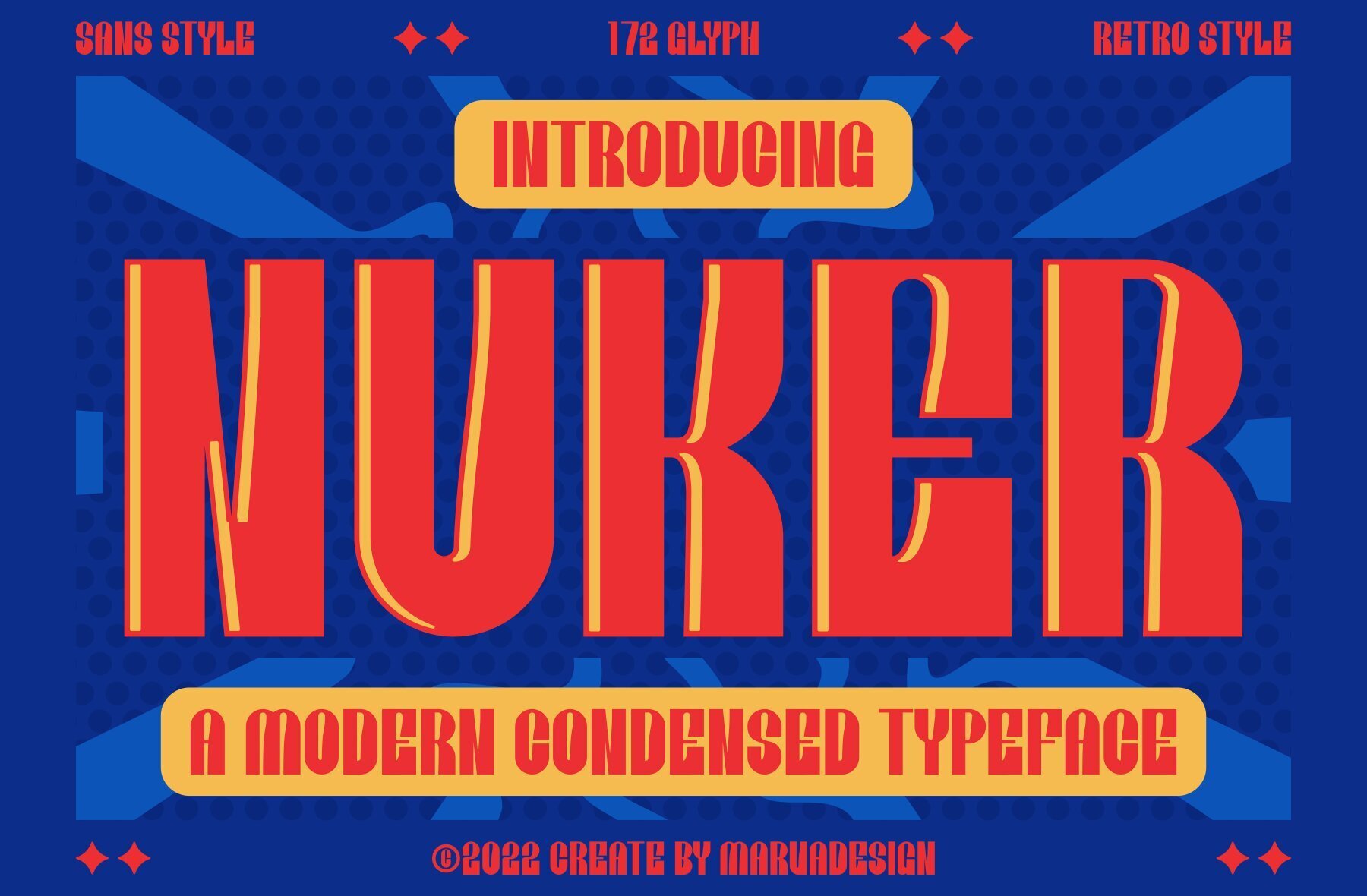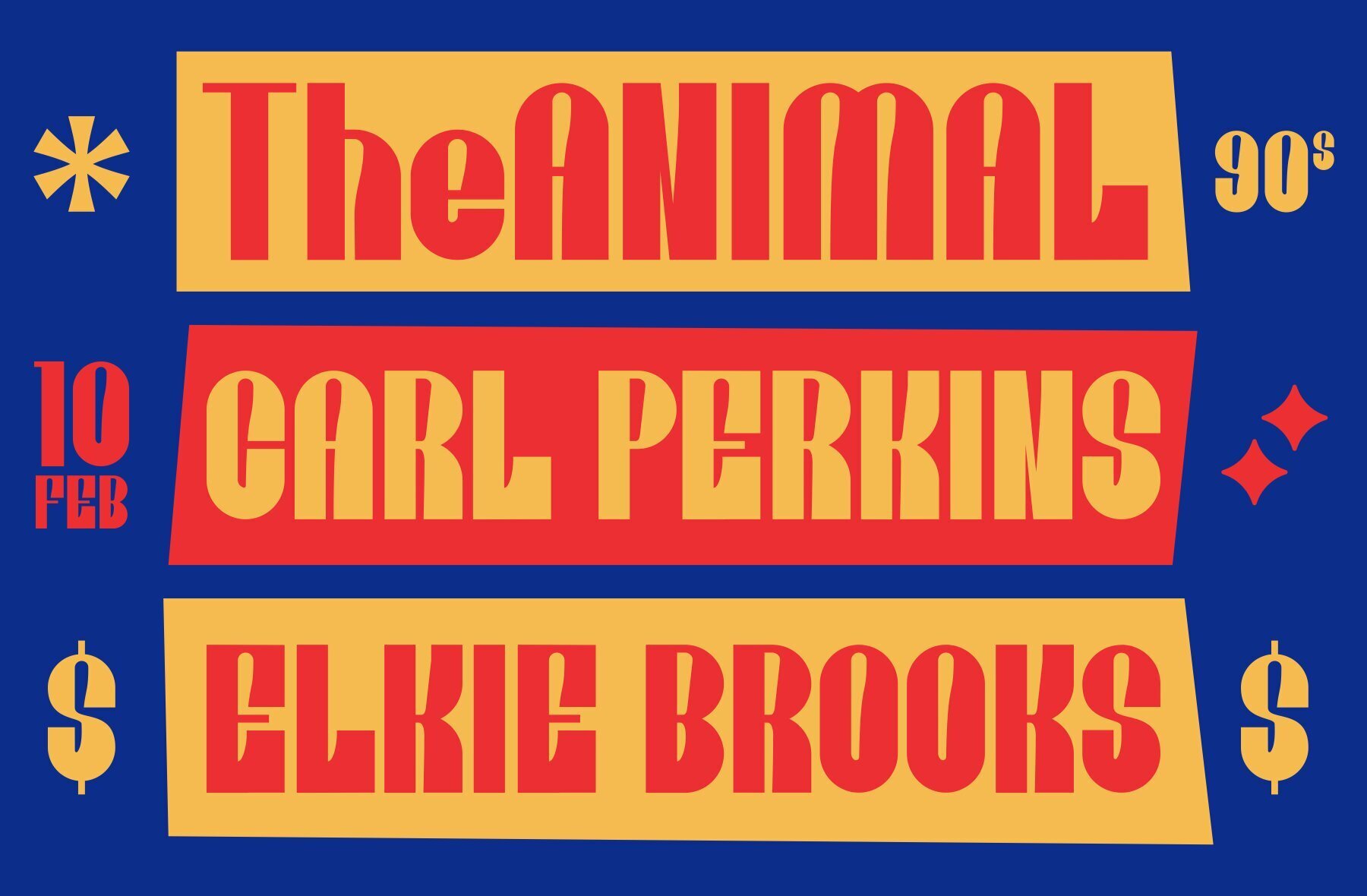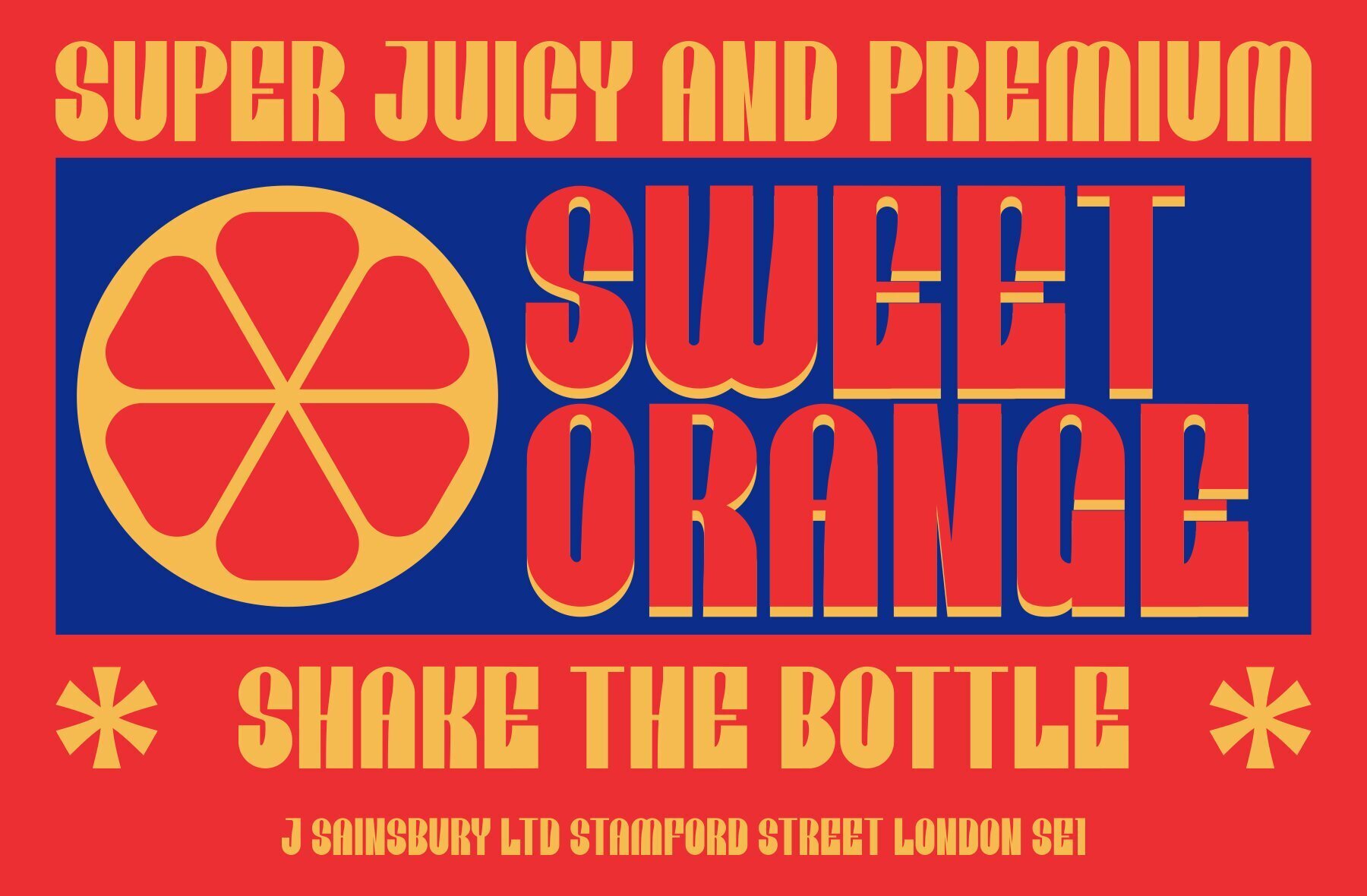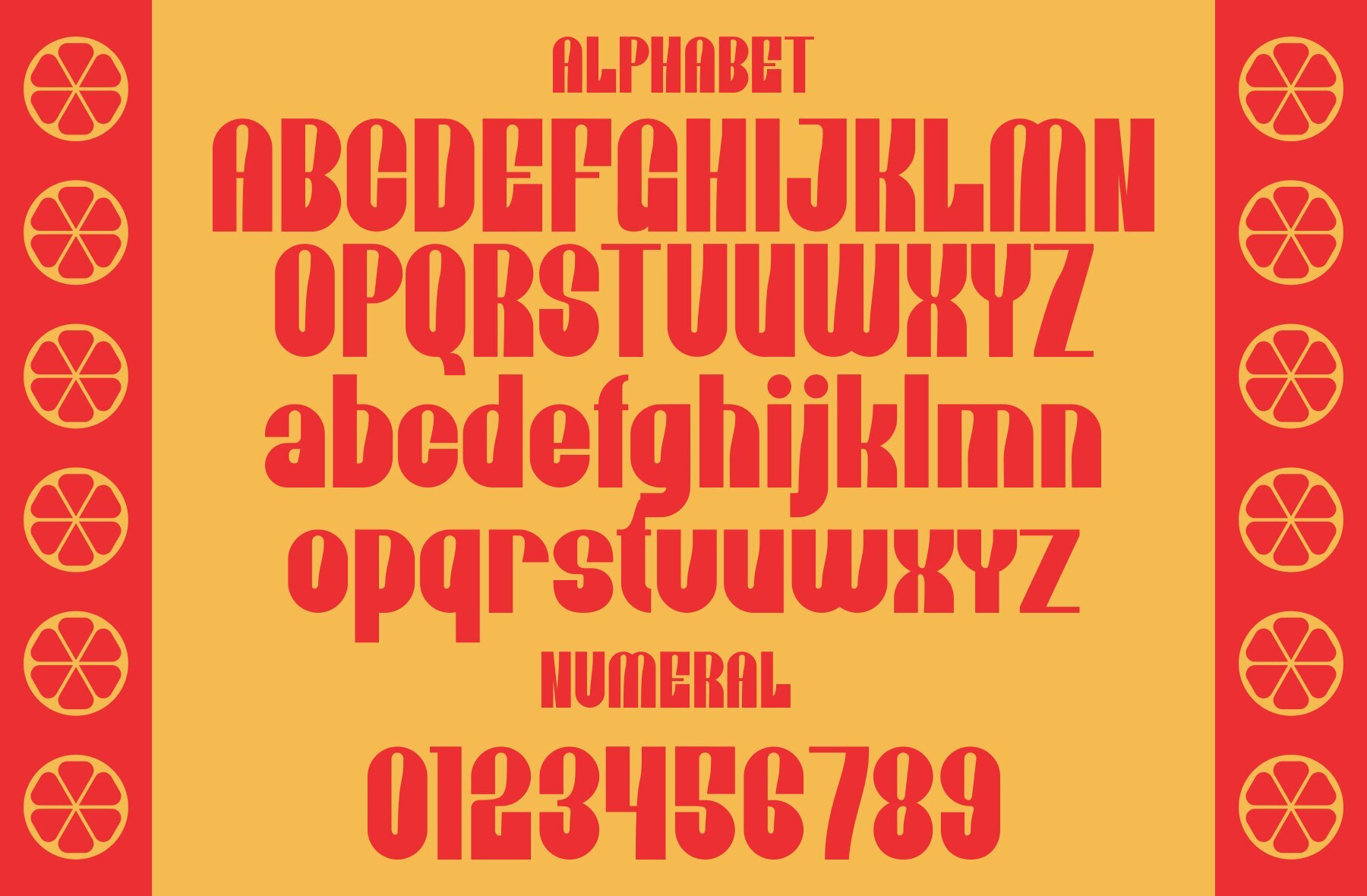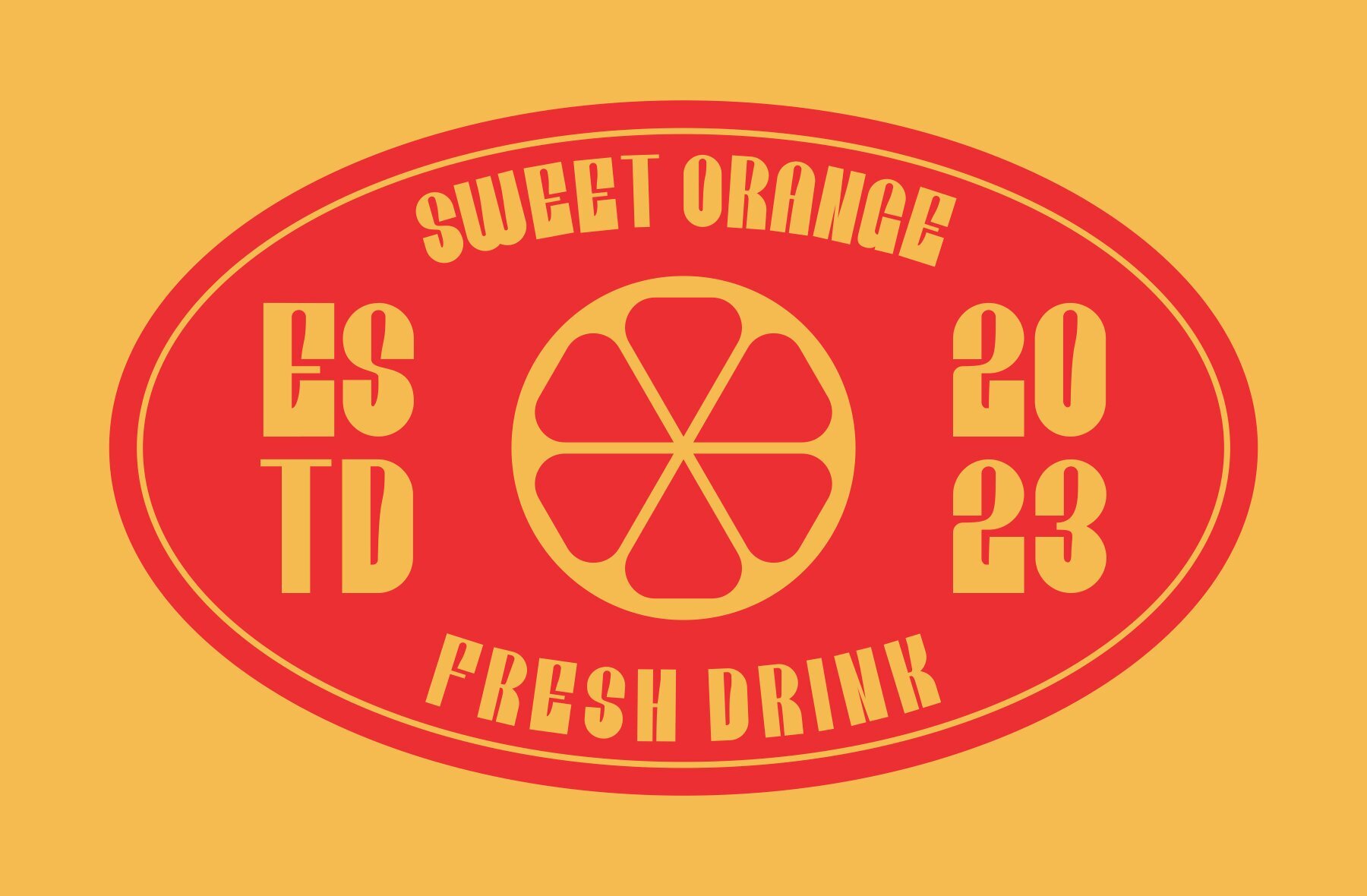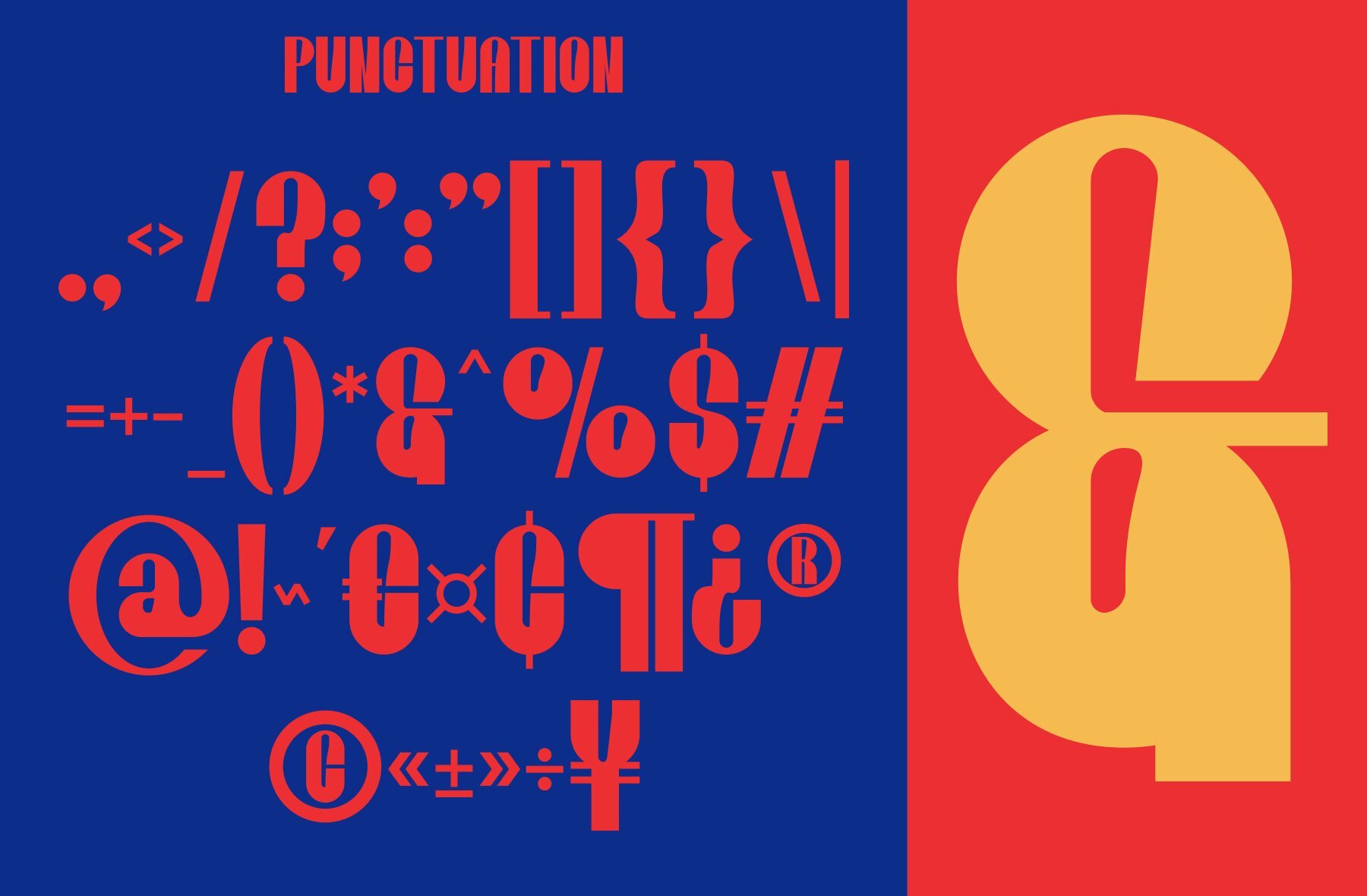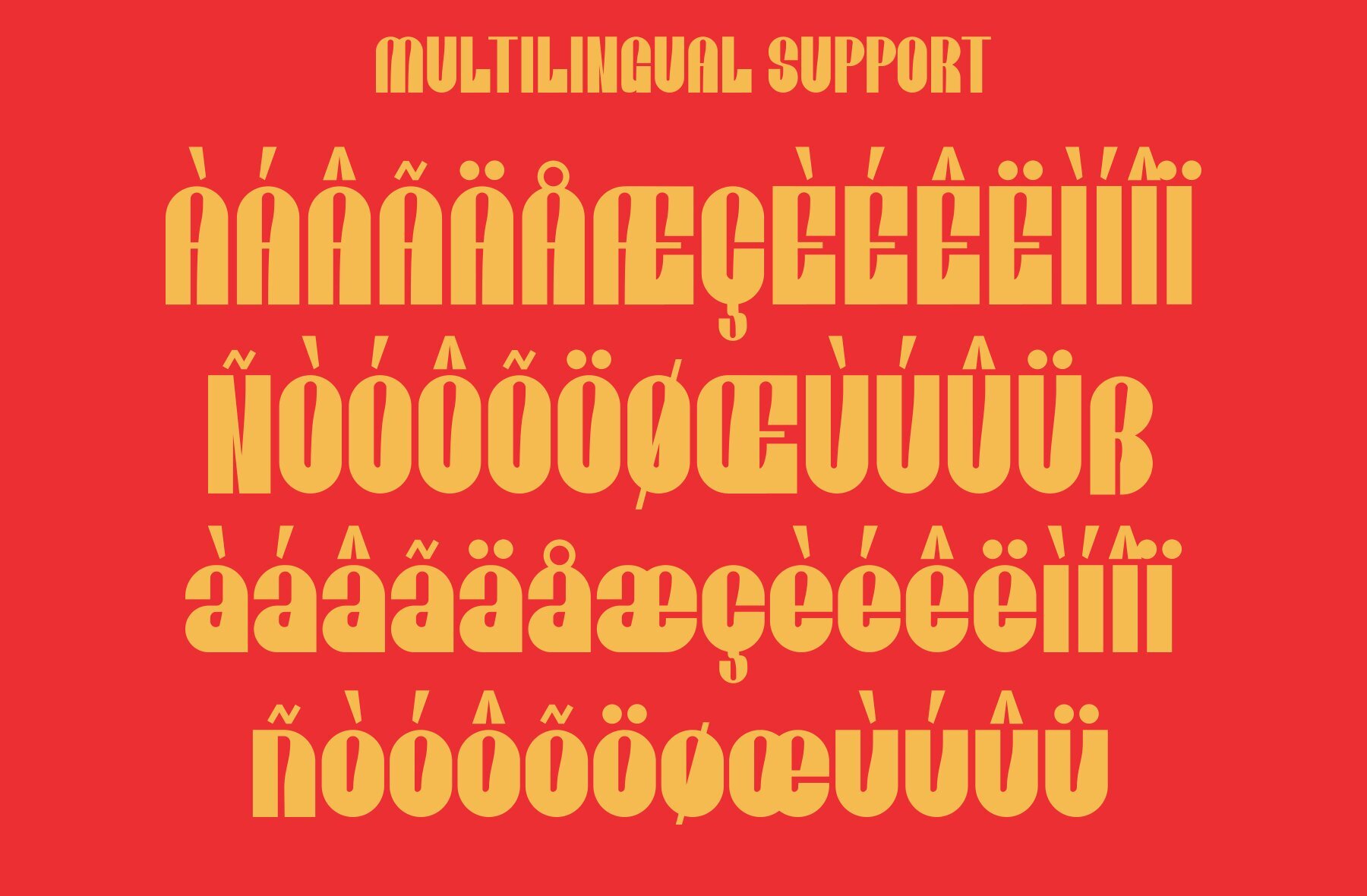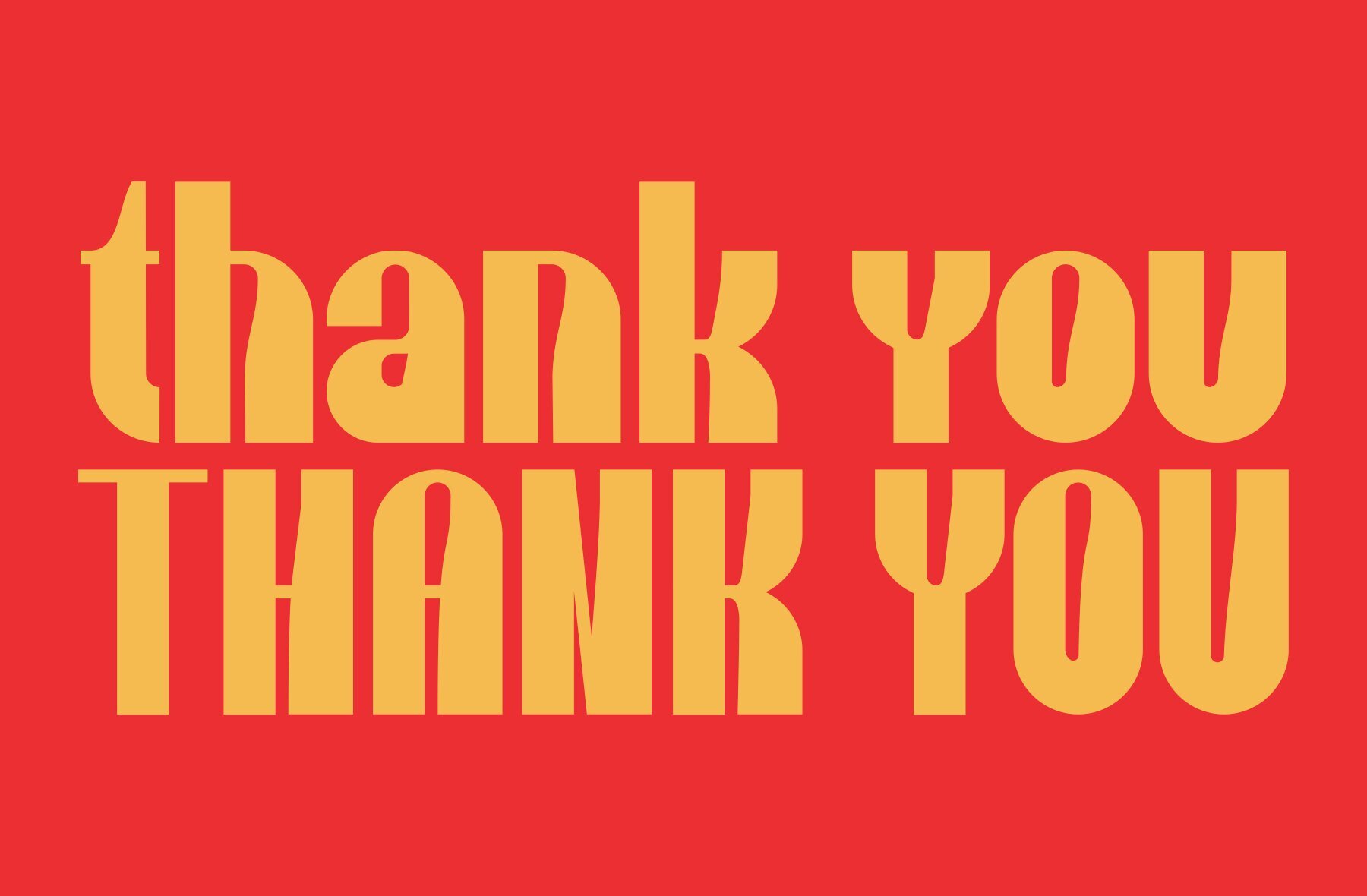
Nuker Font
NUKER
The Nuker Font by Marvadesign is a modern, bold display font perfect for diverse branding projects. From logos to template designs and product labels, Nuker stands out in multiple contexts with its unique design.Nuker Font: Bold and Authentic Display